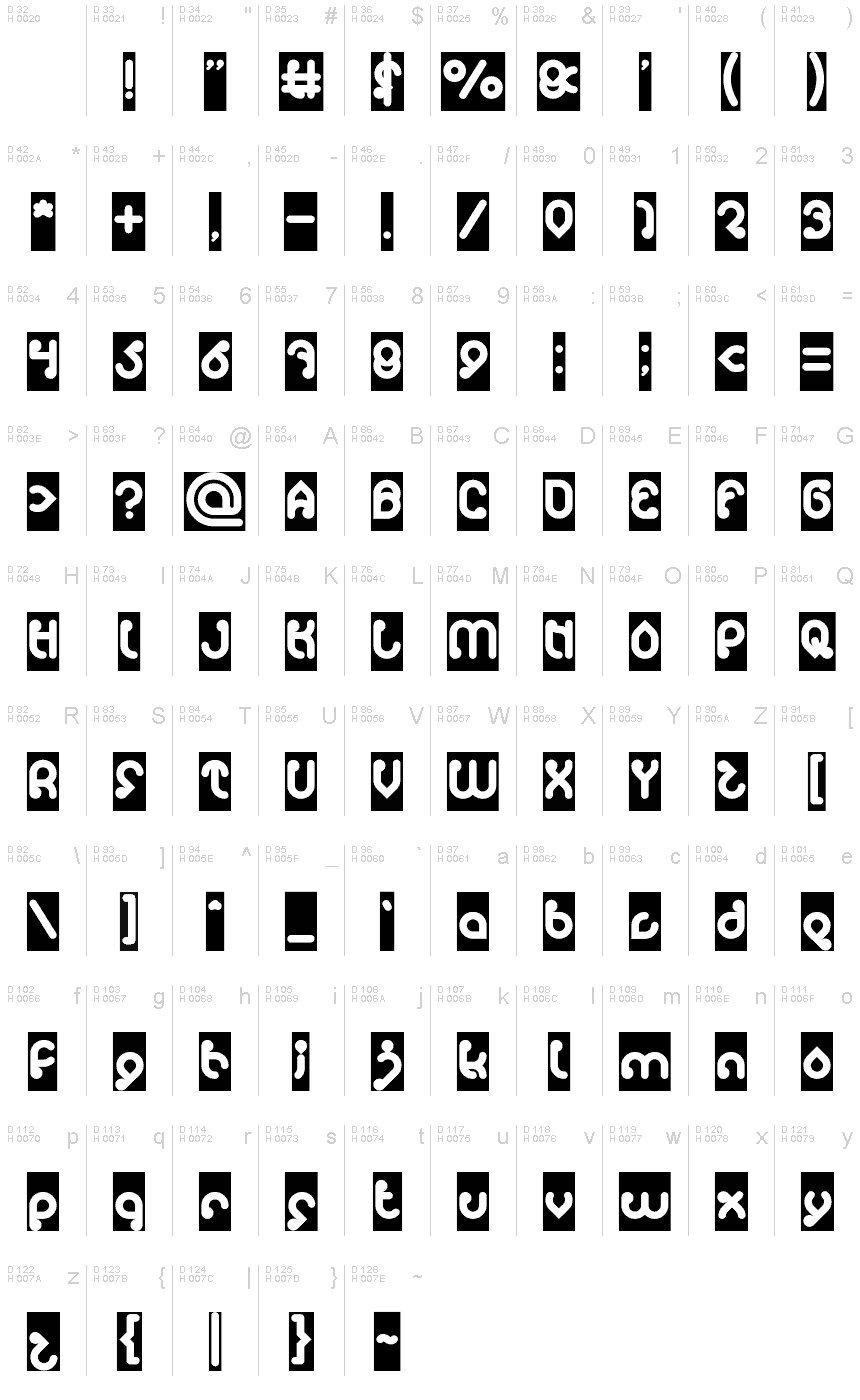
monica-inverse
The Monica Inverse font, designed by Weknow, exudes a captivating and unconventional charm. This display font's groovy, negative style creates a bold, attention-grabbing visual impact. With its distinctive letterforms and striking contrasts, the Monica Inverse font effortlessly blends classic and contemporary aesthetics, making it a versatile choice for eye-catching designs.
Featuring a unique, inverted structure, the Monica Inverse font showcases an intriguing interplay of positive and negative space. This innovative approach lends the font a dynamic, almost three-dimensional quality, adding depth and visual interest to any project.
The Monica Inverse font's versatility allows it to shine in a variety of design applications, from attention-grabbing headlines and impactful logos to captivating branding and packaging. Its bold, unconventional presence can elevate the aesthetic of posters, album covers, and other display-oriented designs, making it a standout choice for creatives seeking to make a lasting impression.